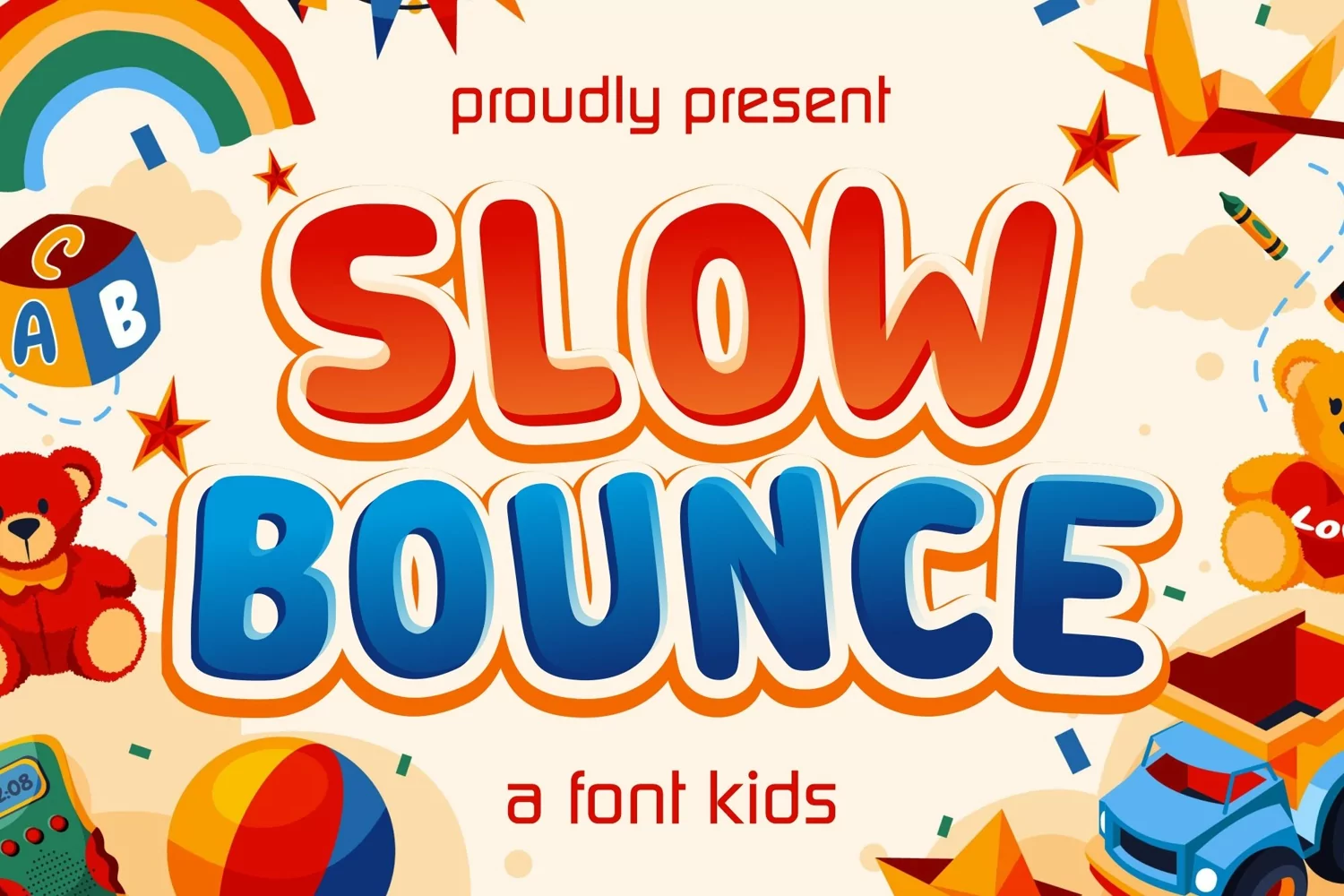
Slow Bounce
Slow Bounce is a very unique and sweet display font. Whether you’re using it for designs related to cartoons, children’s games, or just any creation that requires a beautiful touch, this font will make a great choice.